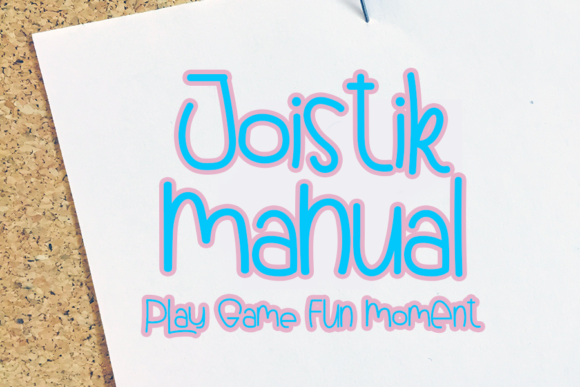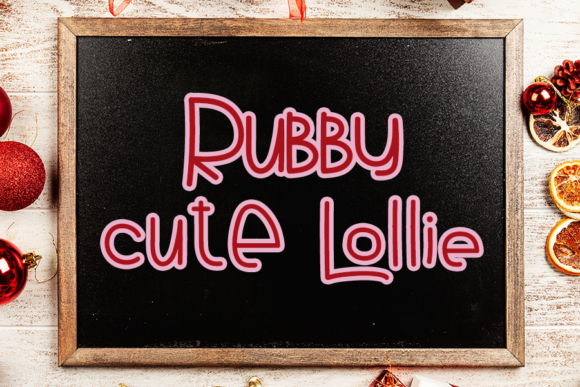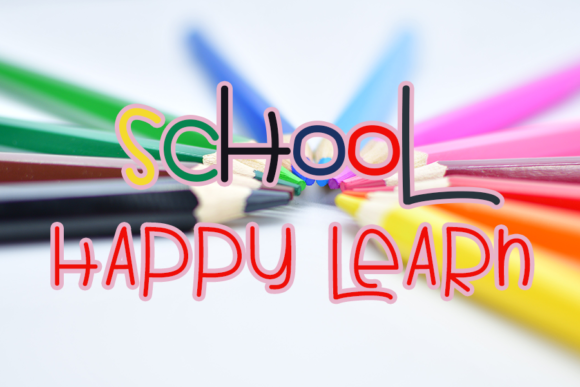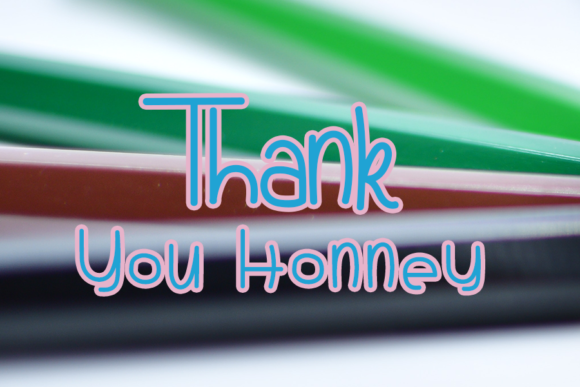
Arbie Bubble Font FREE Font Download
The Joy of Arbie Bubble Font: Adding Whimsy to Your Designs
I’ll never forget the time I was working on a project for a kids’ party invitation. I had the design concept all sorted out, but something was missing – the perfect font. I scrolled through my font library, but nothing seemed quite right. That’s when I stumbled upon Arbie Bubble Font. It was love at first sight! 💕 This cute and quirky display font embodies fun and playfulness, and I knew it was exactly what I needed to bring the invitation to life.
An Honest Review of Arbie Bubble Font
• ✨ The playful, bubbly aesthetic that adds a touch of whimsy to any design
• ✅ Easy to read, even in larger sizes
• 💖 Highly versatile and works well for kids’ projects, school assignments, and even some branding designs
While Arbie Bubble Font is an amazing addition to any design, there are a few things to keep in mind:
• ⚠️ It may not be the best choice for body text or smaller font sizes, as it can become difficult to read.
• 🤔 Some users might find the font a bit too playful for certain projects, so use it judiciously.
3. Experiment with OpenType features, such as glyphs and stylistic alternates, to add more personality to your text.
3. Take advantage of OpenType features, such as ligatures and stylistic sets, to add more visual interest to your text.
Arbie Bubble Font was created with the intention of bringing a touch of whimsy and playfulness to designs. The designer, inspired by childhood memories of blowing bubbles and watching them float away, aimed to capture the carefree spirit of youth in this font. The result is a font that’s perfect for kids’ projects, school assignments, and even some branding designs.
Font Name Arbie Bubble Font
Author K_IN Studio
Q: What type of projects is Arbie Bubble Font best suited for?
A: Arbie Bubble Font is perfect for kids’ projects, school assignments, and creative designs that require a playful touch.